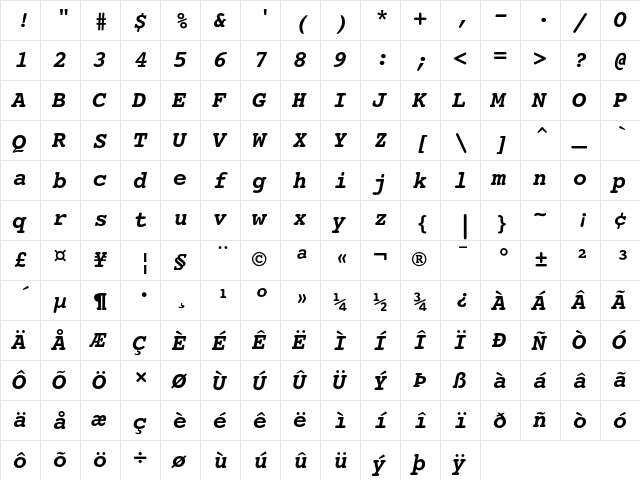
Courier 10 Pitch Bold Italic Font Preview
Design Context for Courier 10 Pitch Typeface
Courier 10 Pitch uses fixed-width spacing throughout, giving it the structured, systematic character associated with coding environments and technical documentation. Its italic angle brings a sense of urgency and motion to the letterforms. Its bold stroke weight gives it real presence on the page.
Pro Tip: Pair Courier 10 Pitch with a proportional sans for UI contexts where code-style labels and regular body copy need to coexist.